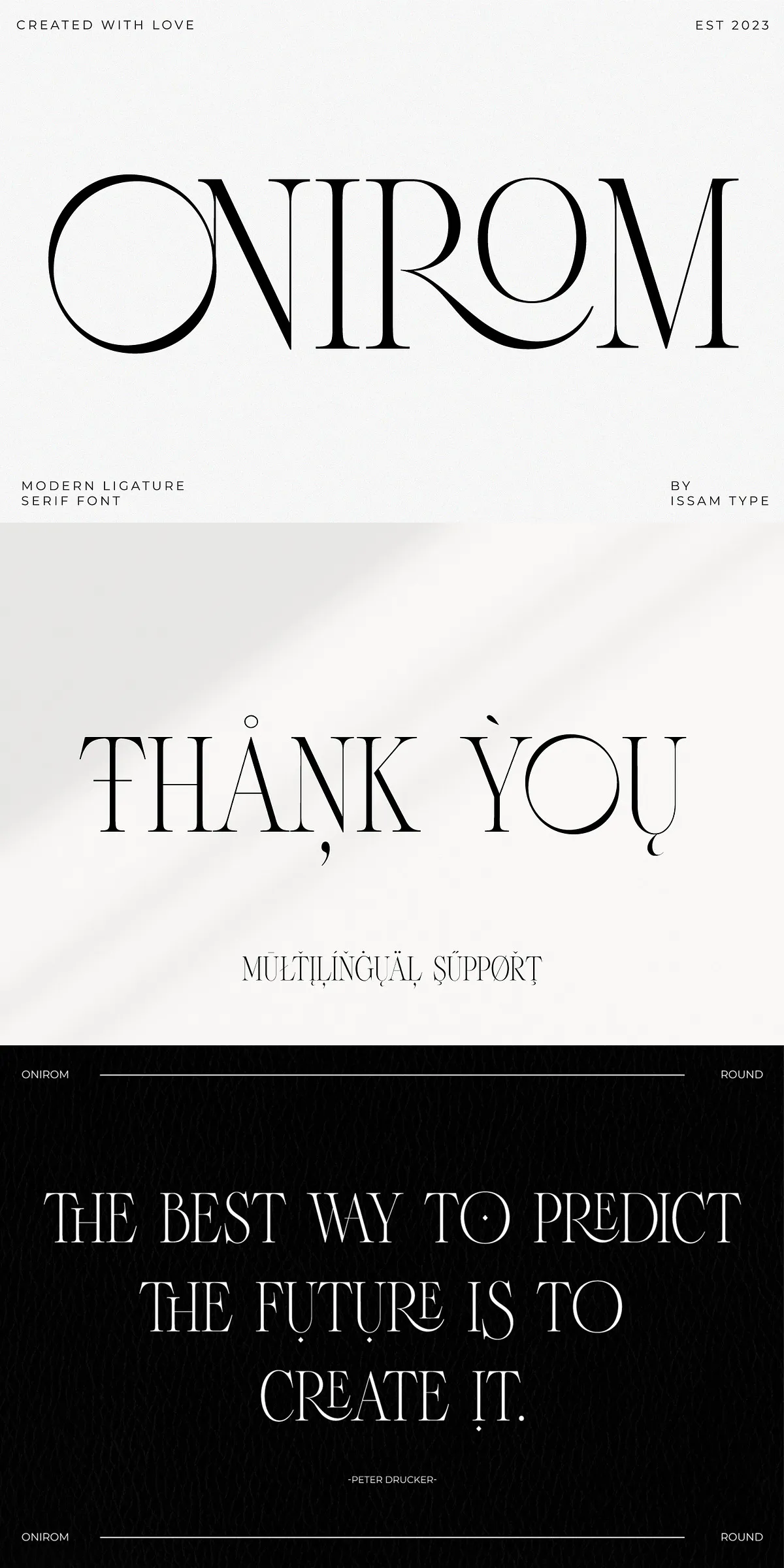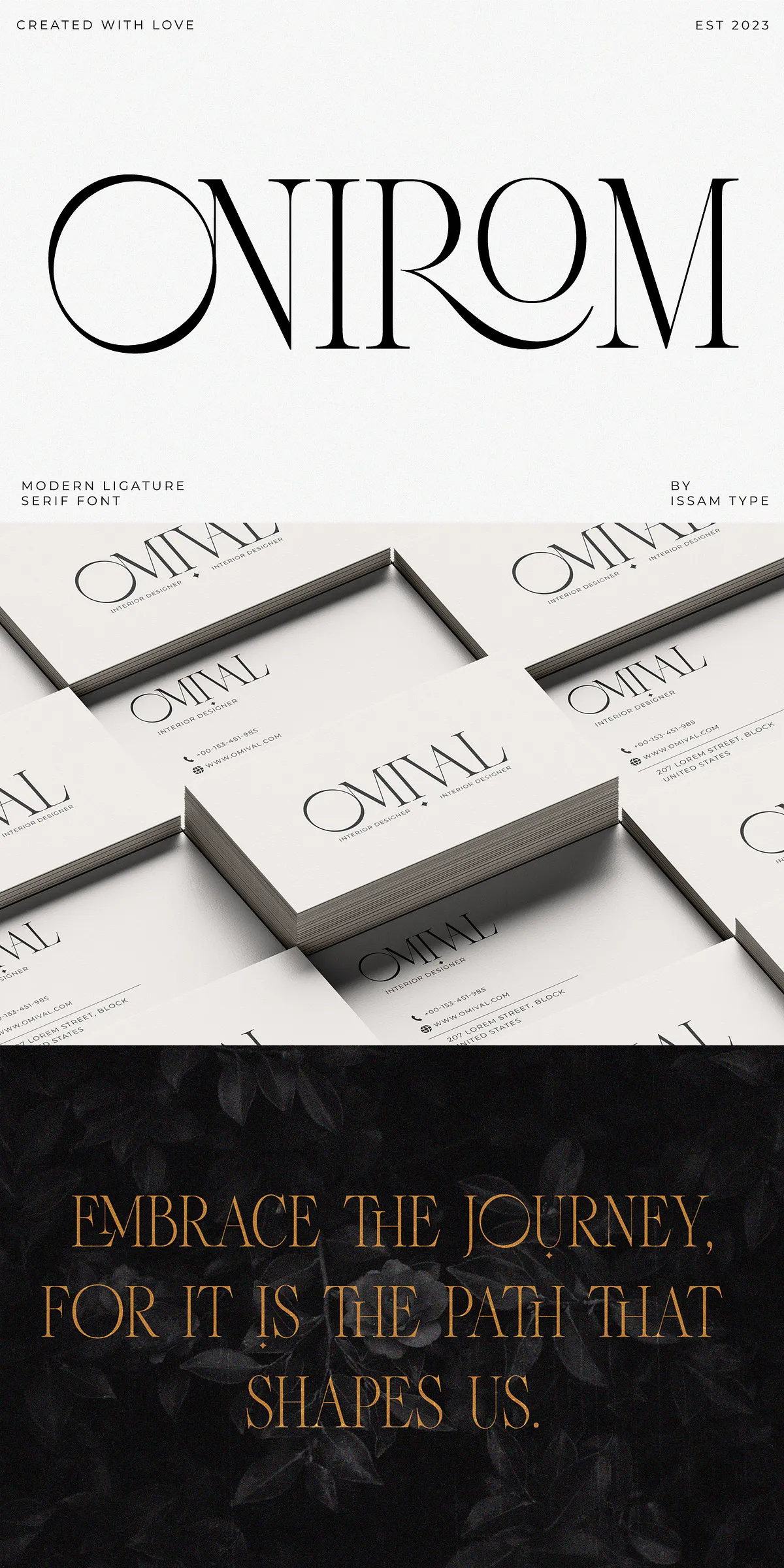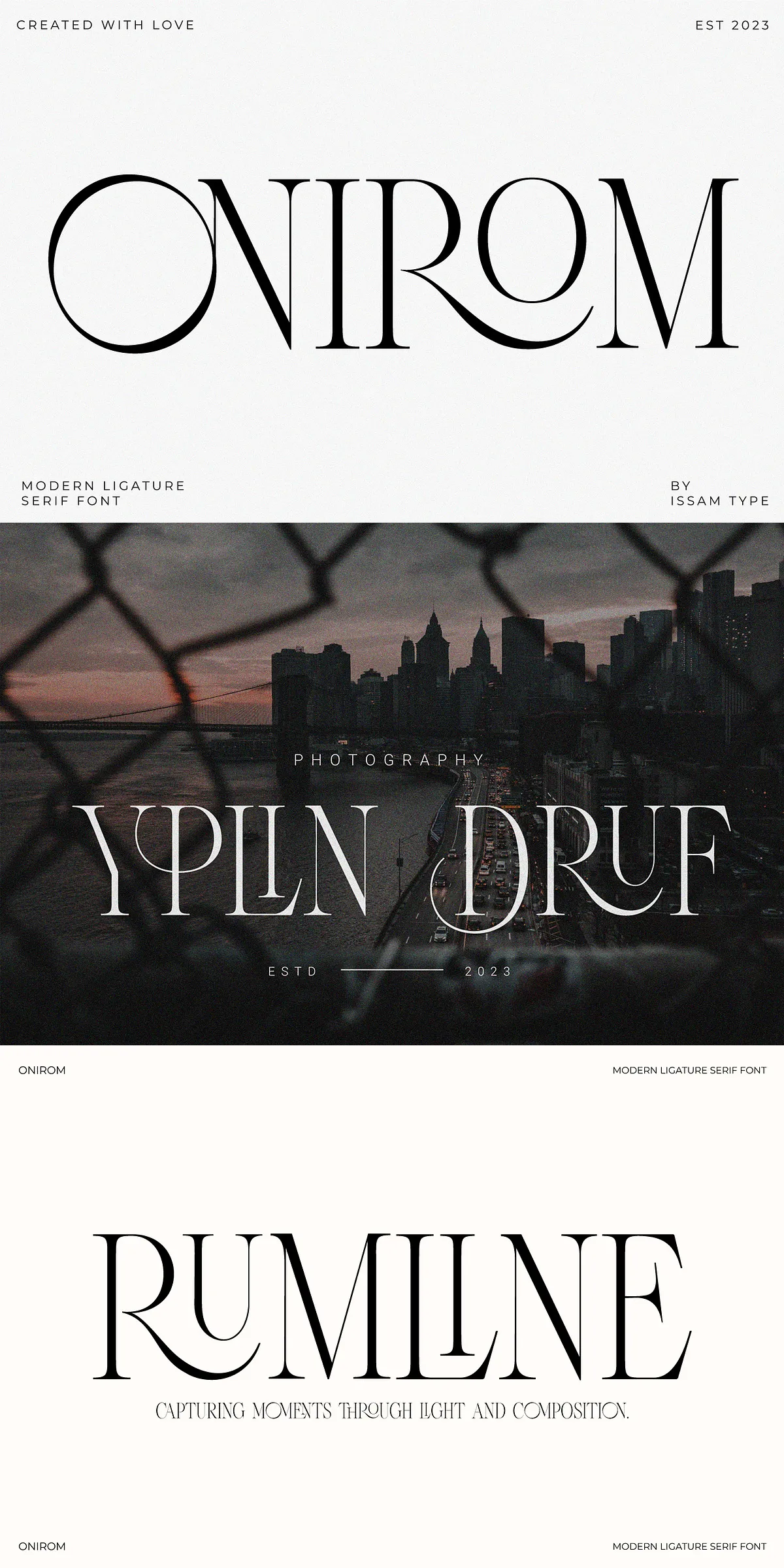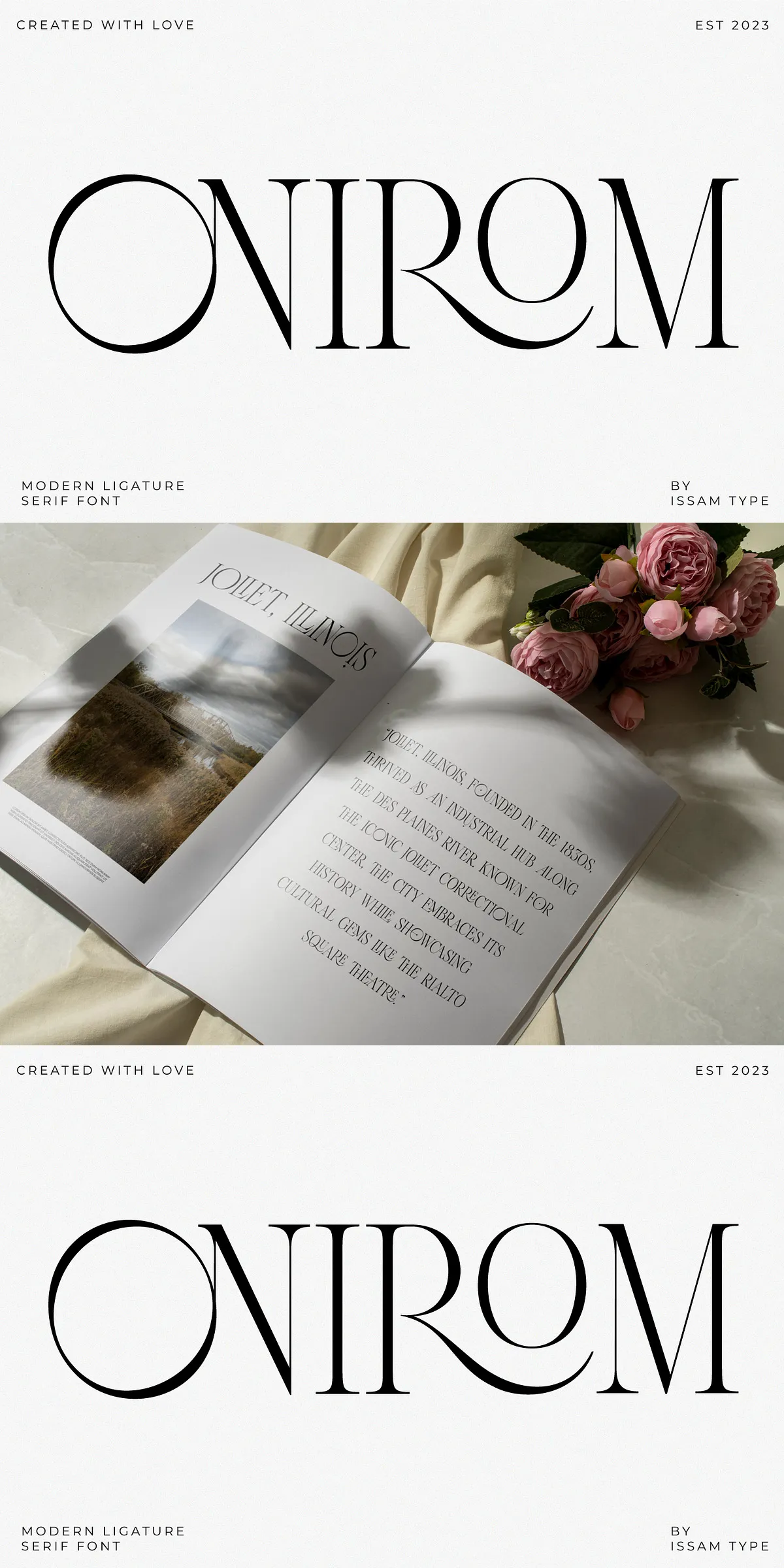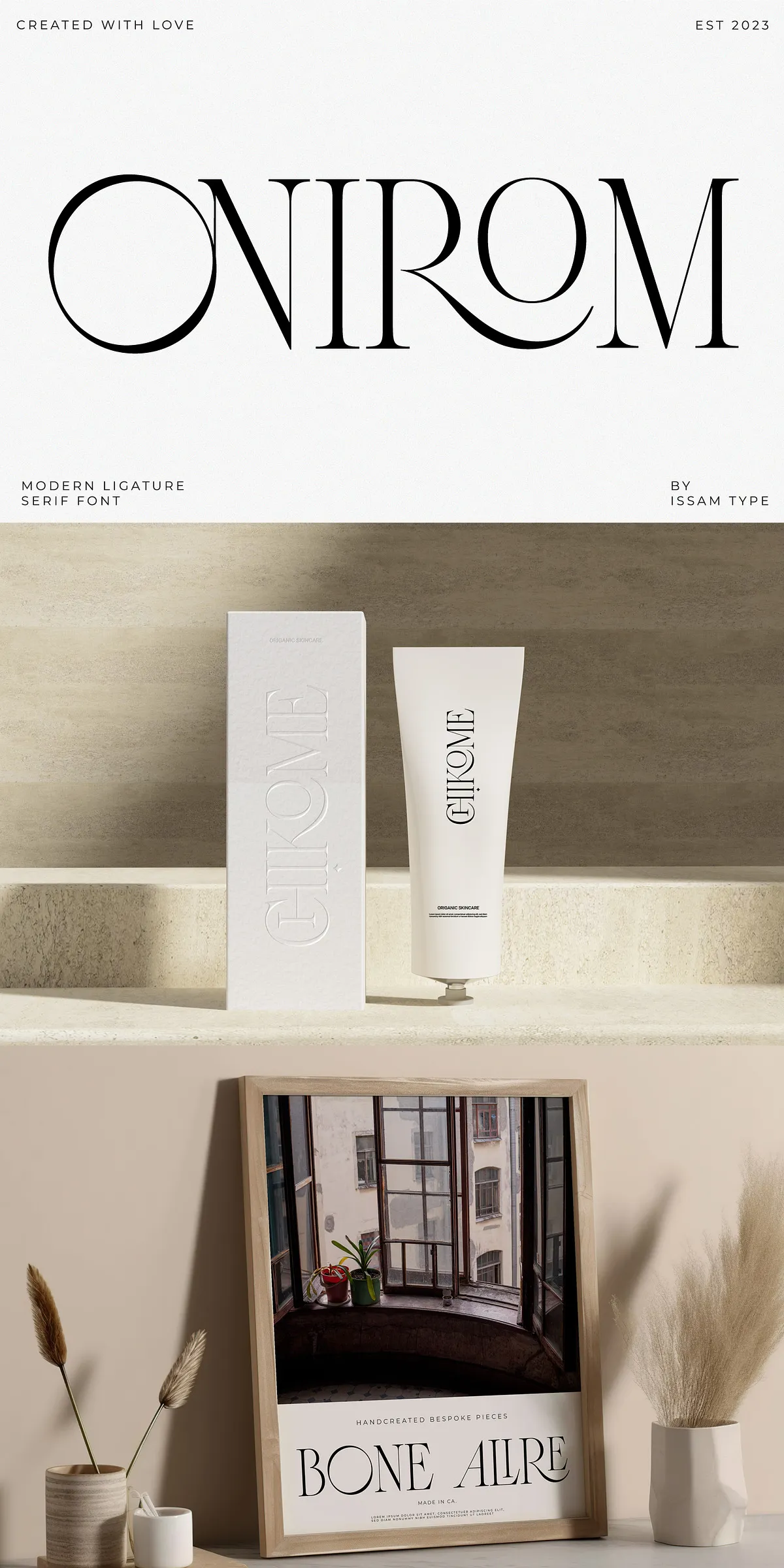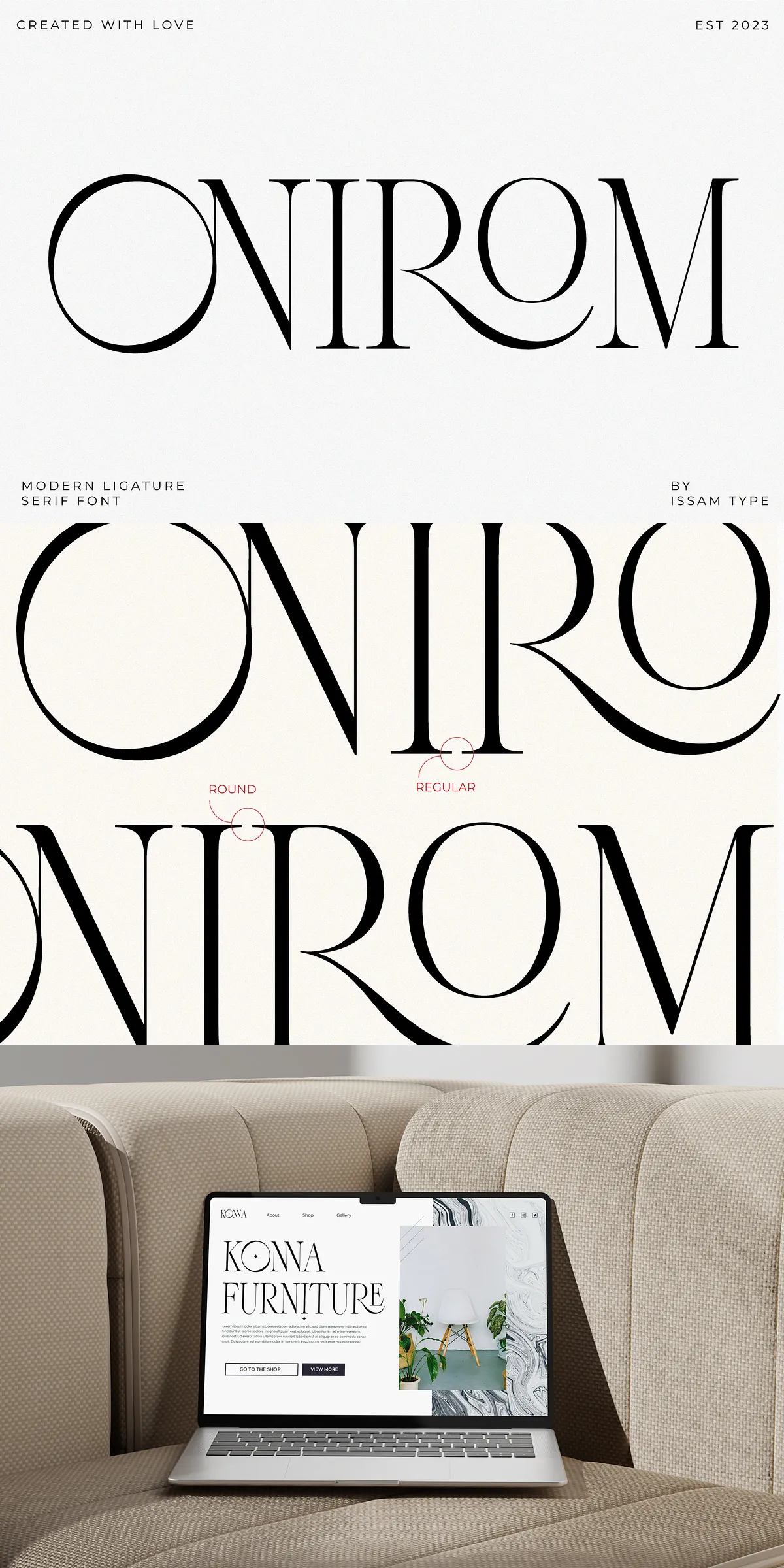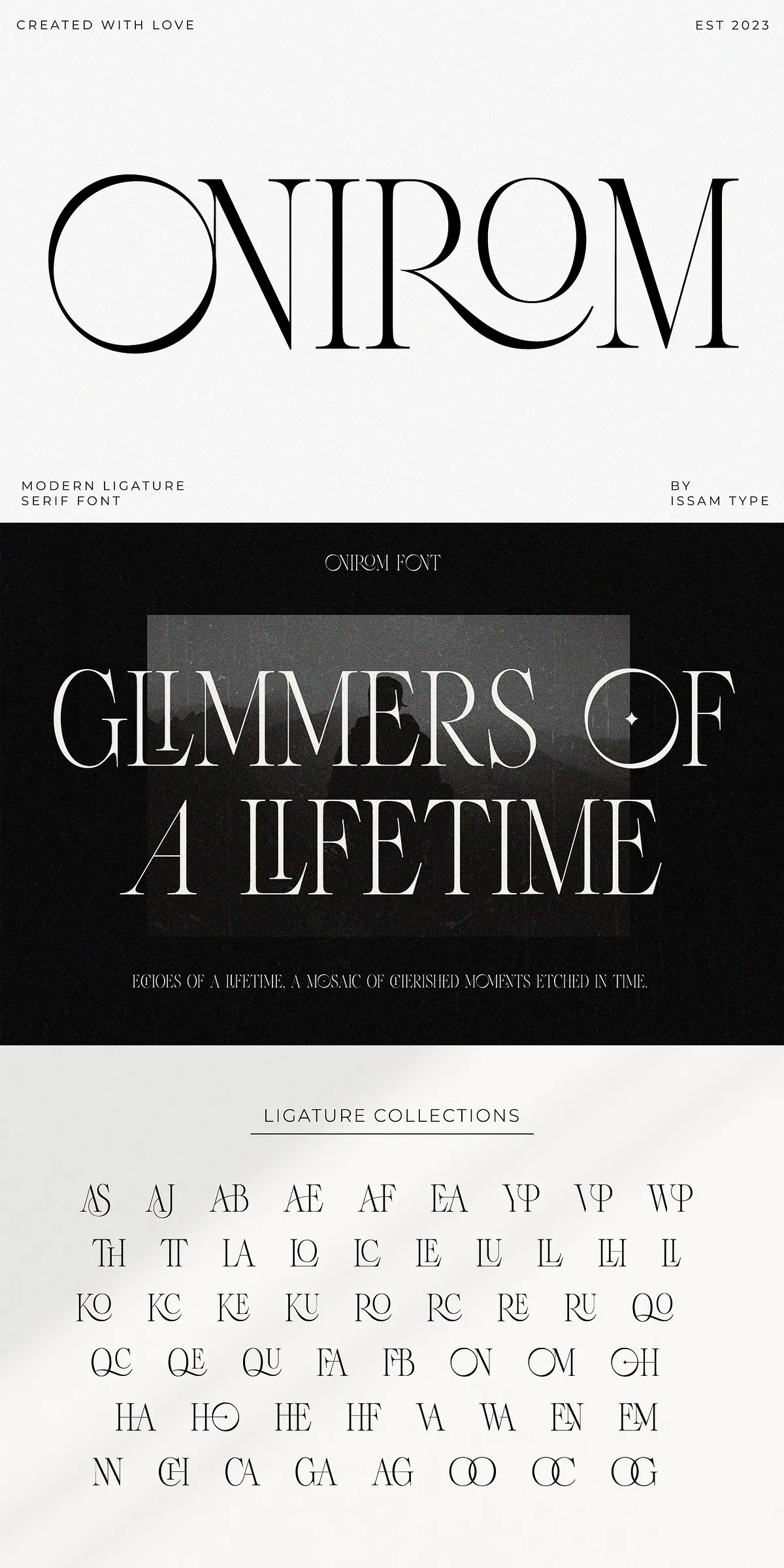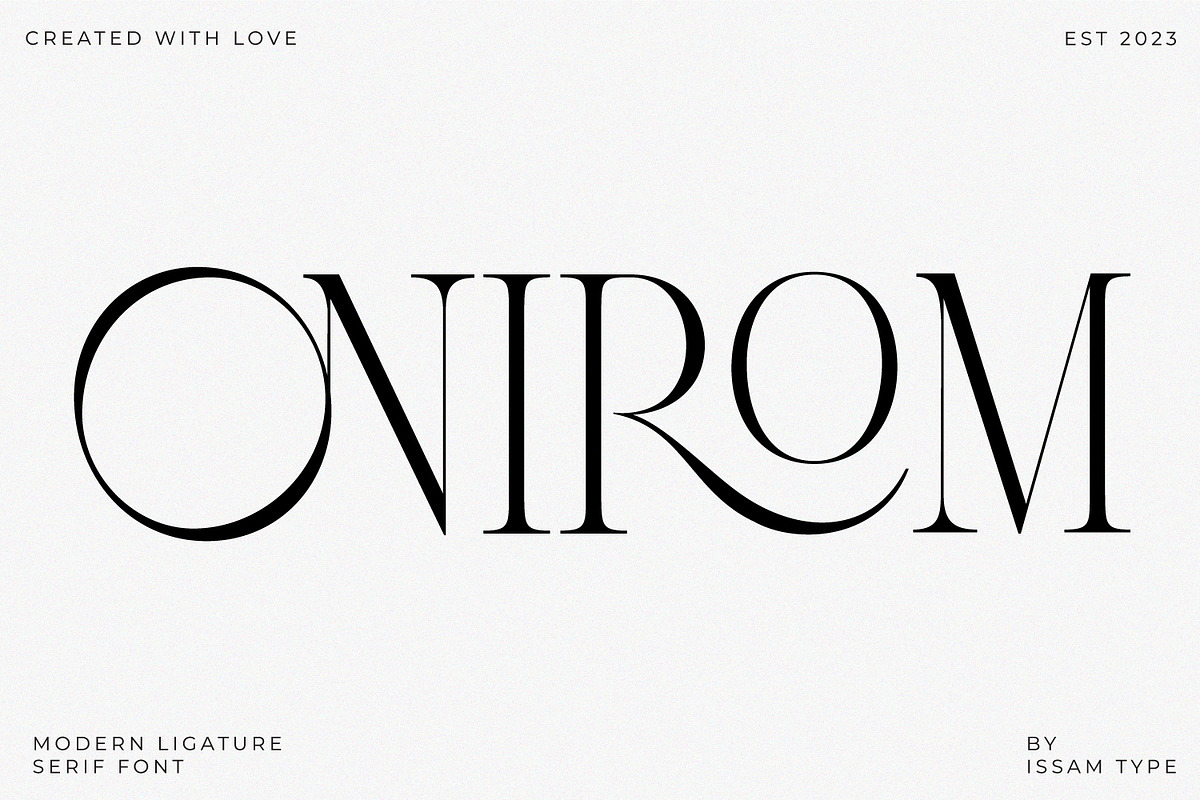
Onirom – Modern ligature serif font
Onirom delivers a distinct voice through sophisticated ligatures and refined serif details that actively attract attention. Built to combine elegant letterforms with expressive joining ligatures, Onirom gives designers the tools to create memorable brand identities, elegant invitations, and striking logos. The design balances classic serif structure with contemporary rhythm, producing a typeface that feels both rooted and forward-looking.
Design Characteristics That Drive Visual Impact
Onirom’s serif terminals and carefully considered stroke contrast produce readable shapes while the joining ligatures introduce ornamental connections that create bespoke wordmarks and logotypes. The result: typographic compositions that look custom-crafted rather than generic. The two available styles — Regular and Round — expand the font’s expressive range. Use the Regular style for structured editorial and branding contexts; apply the Round style to soften the tone and increase approachability in product packaging and stationery.
🔹 Key Features And OpenType Capabilities For Creative Control
Onirom ships with practical OpenType features and format support so you can deploy it across print, web, and digital applications. The typeface activates meaningful typographic behavior through features that designers expect and use every day.
Included OpenType Features
• Kerning — precise spacing adjustments for polished text and logotypes.
• Alternates — stylistic alternate characters to customize word shapes.
• Ligatures — joining ligatures that create unique letter connections and bespoke typographic forms.
• Stylistic Sets — curated variations to tailor personality and tone.
🔹 Practical Applications Where Onirom Excels In Practice
Onirom performs strongly in contexts that demand personality and legibility. The typeface actively supports creative workflows by offering visual flexibility and technical readiness.
Branding, Logos, And Wordmarks
Pair Onirom’s ligature-driven forms with minimalist layouts to craft distinctive logos and wordmarks. The ligatures act like custom joins, producing identities that read as handcrafted. Use the Round style to soften brand voices or the Regular style where clarity and editorial authority are required.
Invitations, Packaging, And Collateral
Onirom transforms invitations and packaging into tactile experiences through expressive typographic details. The joining ligatures and alternates allow you to create headline treatments and monograms that feel bespoke, elevating product presentation and ceremonial print materials.
Watermarks, Signage, And Decorative Uses
Leverage the font’s ligatures and stylistic sets to design refined watermarks and decorative signage. The controlled contrast keeps marks legible at larger scales while ligatures add ornamental nuance that reads clearly in display sizes.
🔹 Best Practices For Implementing Onirom In Projects
To maximize Onirom’s impact, combine it with clean, neutral body text and reserve ligature-rich treatments for headlines, logos, or accents. Use stylistic alternates sparingly to retain legibility, and test ligature behavior in different layout scales. When deploying on the web, prefer WOFF2 for performance and consistent rendering across modern browsers.
Pairing Recommendations And Workflow Tips
• Pair Onirom with a neutral sans-serif for balanced layouts.
• Use the Round style for brand communications that need warmth.
• Apply kerning and stylistic sets manually in display treatments for precise results.